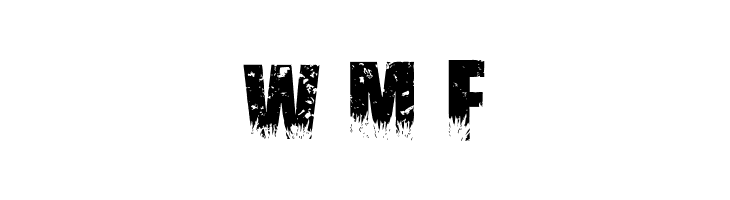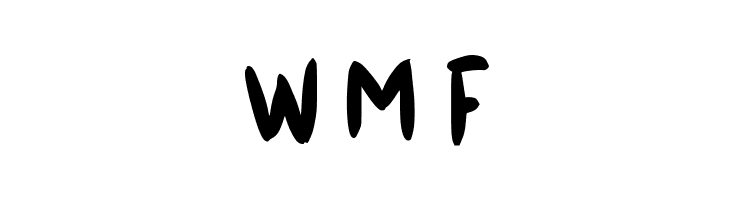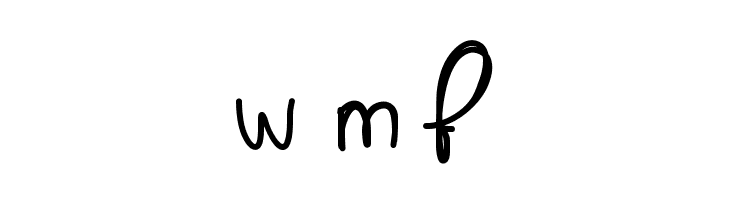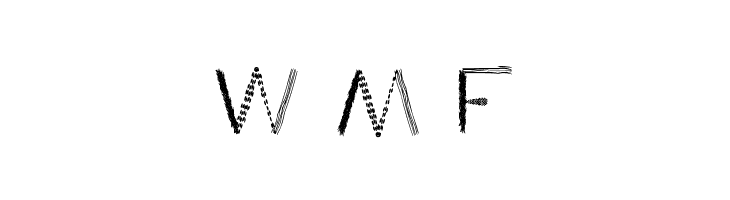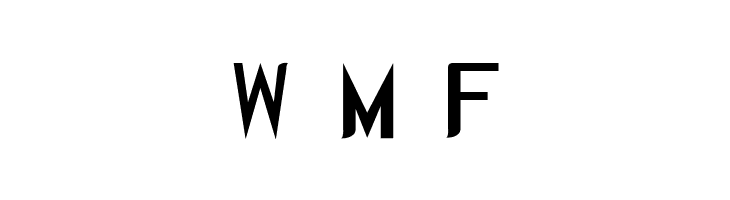
An elegant script font with ornate, flowing letterforms.
A playful, handwritten font with smooth, fluid strokes and a dynamic appearance.
A casual, handwritten font with free-flowing strokes and uneven spacing.
An artistic and decorative font with intricate, swirling letterforms.
Whimsical weather-themed dingbat illustrations.
A whimsical and decorative design featuring playful bird-like characters.
A dynamic, italicized handwritten font with smooth, fluid strokes.
A casual, playful handwritten font with a dynamic, slightly tilted style.
A bold, dynamic script font with a handwritten style.
A bold, distressed font with a textured, organic appearance.
A playful handwritten font with smooth, flowing lines and a casual style.
An elegant, flowing script font with intricate swashes and a sophisticated style.
A textured, artistic font with intricate line and dot patterns.
A modern, sans-serif font with a clean, condensed style and medium contrast.
A decorative font with intricate, nature-inspired patterns and a unique organic style.
A bold, playful font with a unique inline style and rounded characters.
A bold, brush-style font with dynamic, hand-painted strokes.
A bold, modern typeface with clean lines and excellent legibility.
A lively handwritten font with fluid, cursive strokes and a playful touch.
A lively handwritten font with fluid, expressive strokes.
A bold, textured font with a natural, overgrown foliage effect.
A bold, playful handwritten font with thick, rounded strokes.
A playful, handwritten font with bold, dynamic characters.
A decorative font filled with leaf-like patterns, offering a playful and organic style.
A bold, dramatic Blackletter-style font with sharp, angular lines.
A bold, distressed font with a grunge aesthetic and rebellious style.
A bold, ornate blackletter font with a medieval aesthetic.